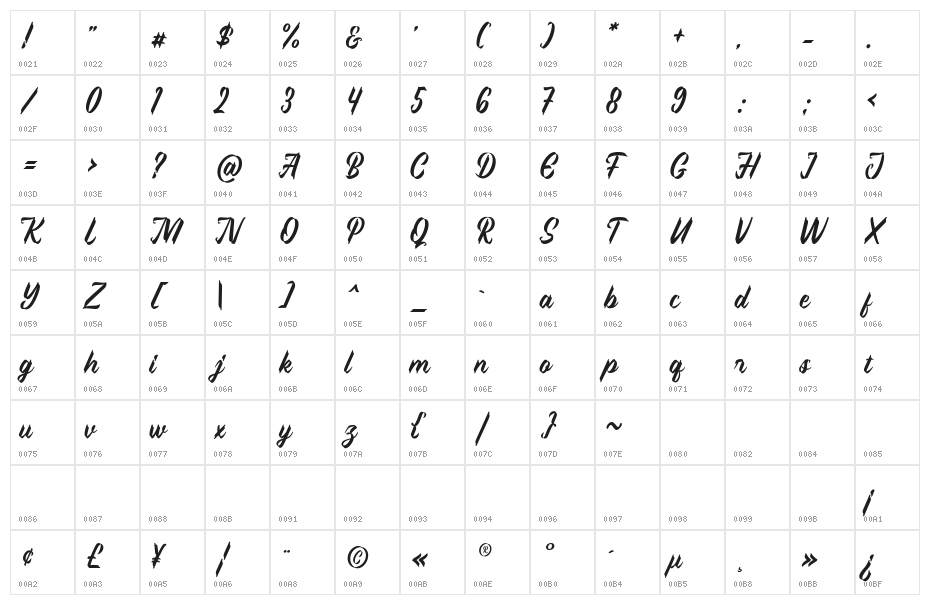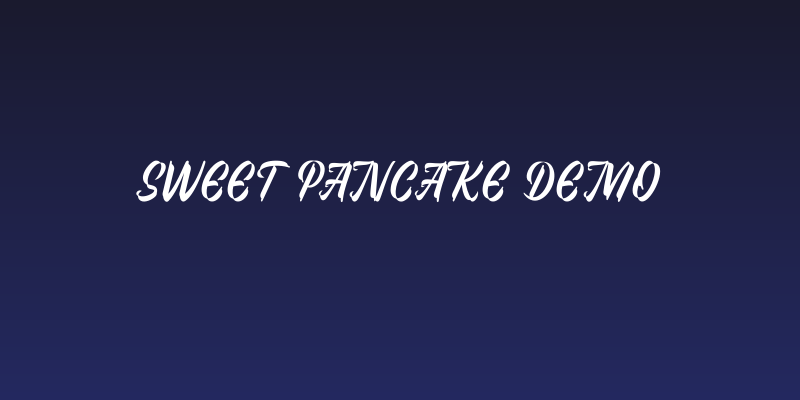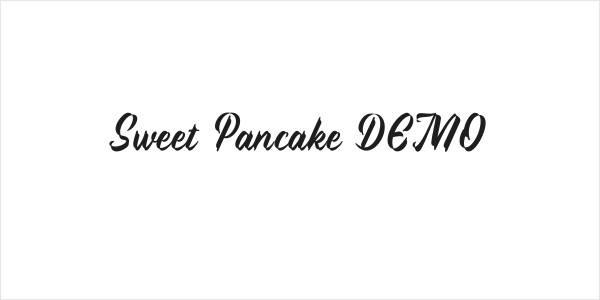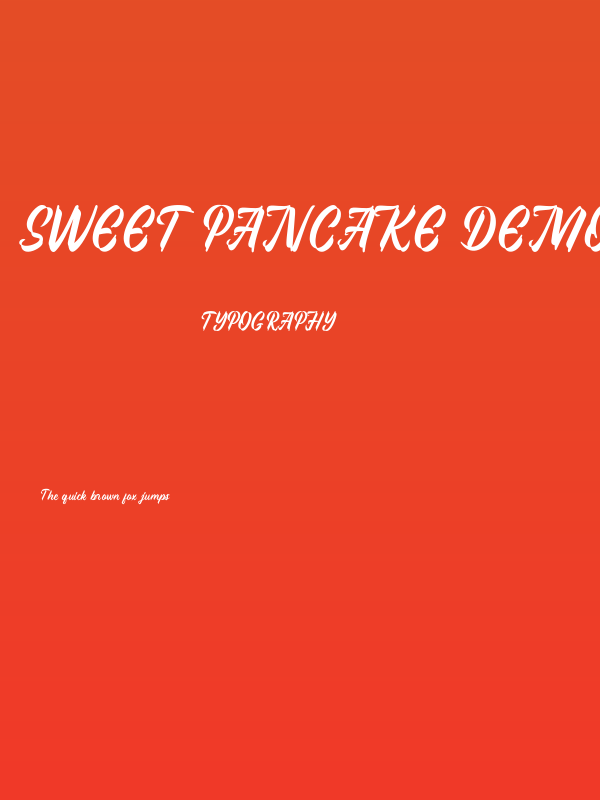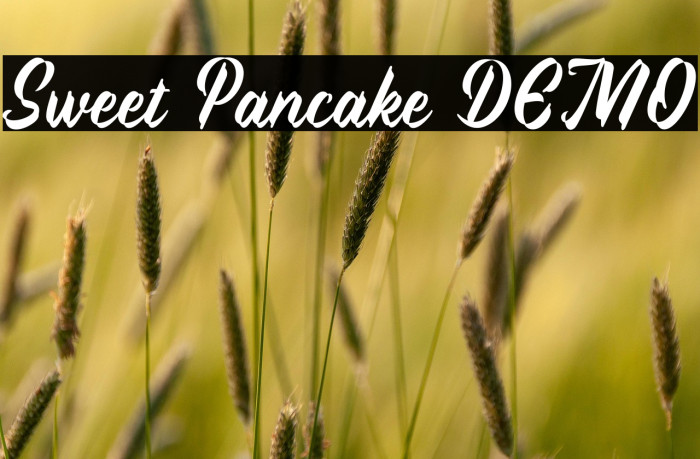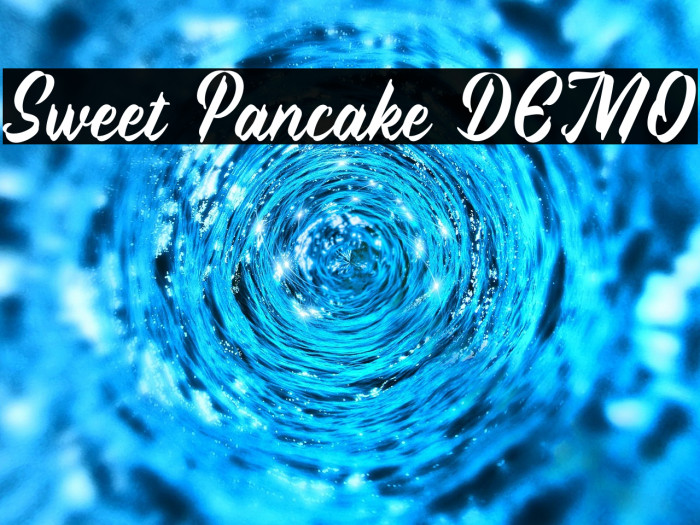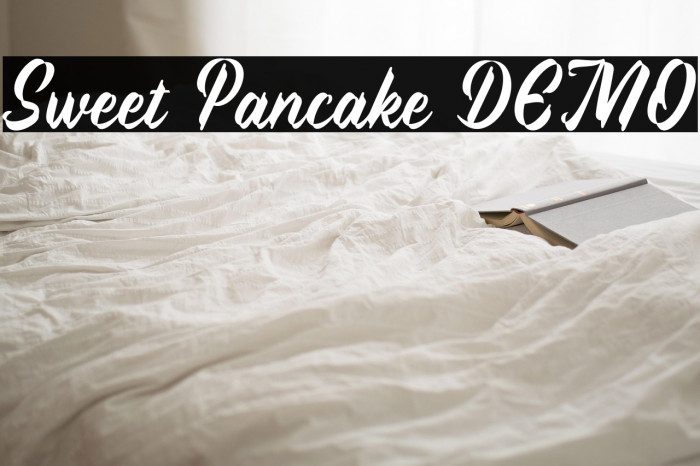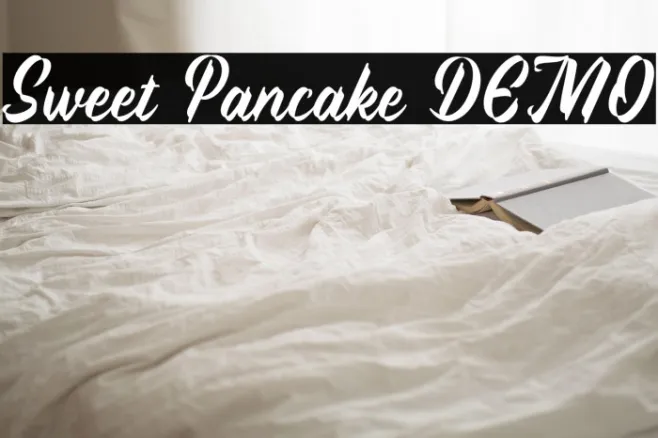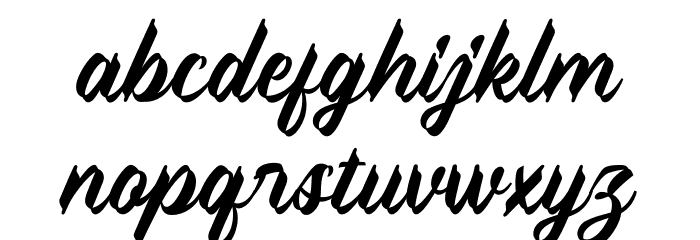
Sweet Pancake DEMO Font
Sweet Pancake DEMO Description
This font features a bold and flowing script style, characterized by its elegant and cursive letterforms. The uppercase letters exhibit a sense of grandeur with sweeping curves and flourishes, while the lowercase letters maintain a consistent fluidity, enhancing readability. The numerals are distinct and maintain the script style, ensuring uniformity across all characters. Special characters are creatively integrated, adding a playful yet sophisticated touch. The overall design is reminiscent of classic calligraphy, making it suitable for projects that require a touch of elegance and personality.